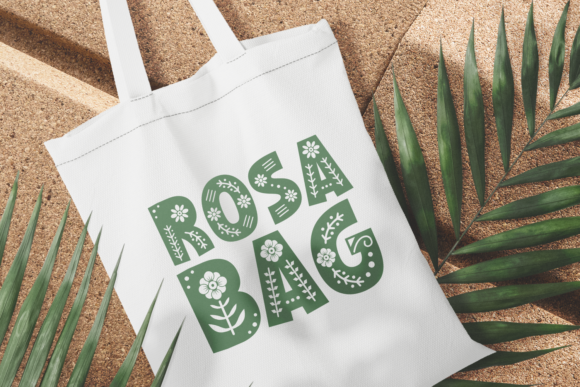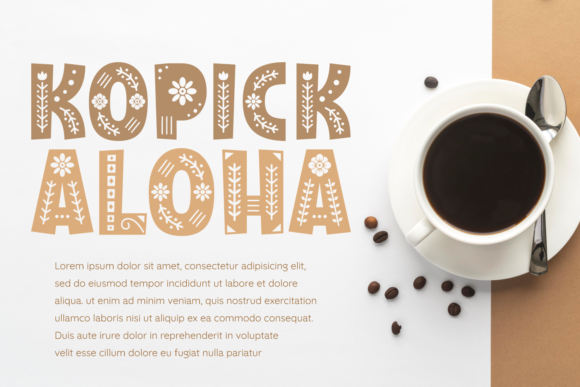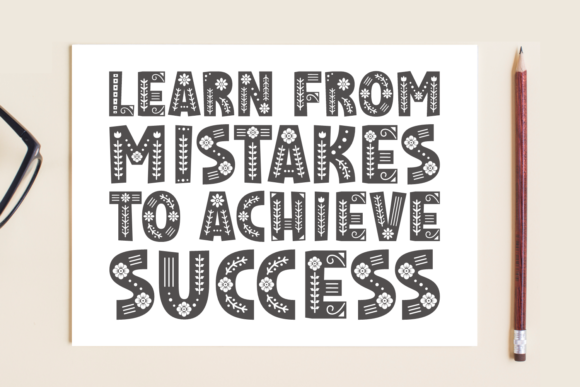
The Designer’s Delight: Belma Flora Font
I still remember the time I was working on a project for a client who wanted a bold, eye-catching font to match their brand’s playful personality. I scoured the internet for hours, trying out font after font, but nothing seemed quite right. That was until I stumbled upon the Belma Flora font. Its chubby characters and beautiful floral accents instantly caught my attention, and I knew I had found the perfect fit. In this article, I’ll share my experience with Belma Flora, its features, and how to make the most of this stunning font.
- ✨ Bold and Fresh Look: Belma Flora’s unique design makes it perfect for creations that need a stunning appearance.
- ✅ Beautiful Floral Accents: The font’s floral accents add a touch of elegance and sophistication to any design.
- 💃 Versatile: Belma Flora can be used for a wide range of projects, from branding and advertising to crafting and DIY tutorials.
While Belma Flora is an amazing font, there are a few things to keep in mind:
- ⚠️ Legibility at Small Sizes: Due to its bold and decorative nature, Belma Flora may not be the best choice for body text or small font sizes.
- 🤔 Pairing with Other Fonts: Belma Flora’s unique style can make it challenging to pair with other fonts. Experiment with different combinations to find the perfect match.
The Story Behind Belma Flora
Belma Flora was designed by a team of creatives who wanted to create a font that would bring a touch of elegance and playfulness to any design. Inspired by the beauty of nature and the world of florals, they crafted a font that is both bold and delicate. The result is a unique and eye-catching font that is perfect for designers, crafters, and creative hobbyists.
Q: What is Belma Flora font?
A: Belma Flora is a bold and fresh decorative font with chubby characters and beautiful floral accents.
Q: What can I use Belma Flora for?
A: Belma Flora can be used for a wide range of projects, from branding and advertising to crafting and DIY tutorials.
Q: Is Belma Flora easy to read?
A: Belma Flora is a bold font, and while it’s perfect for headlines and titles, it may not be the best choice for body text or small font sizes.